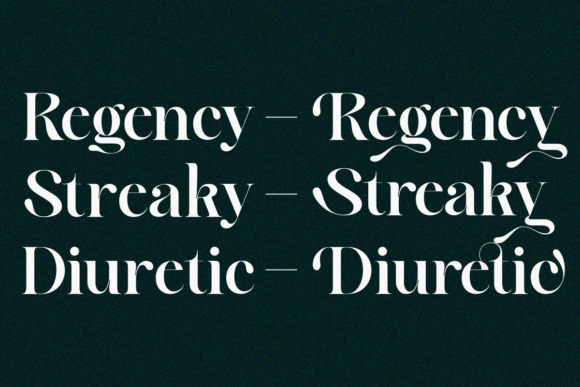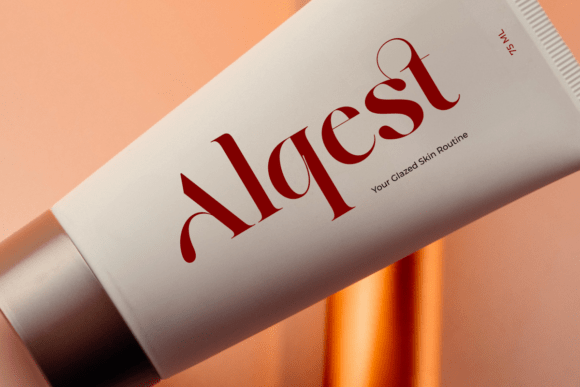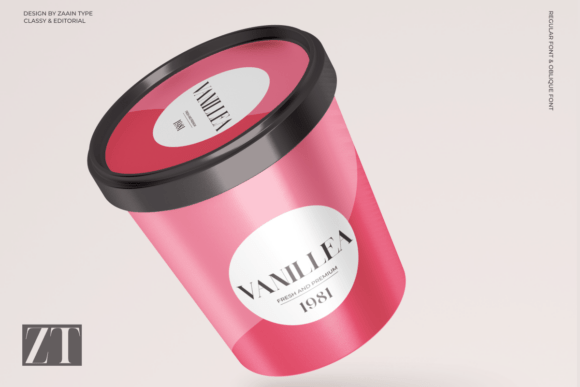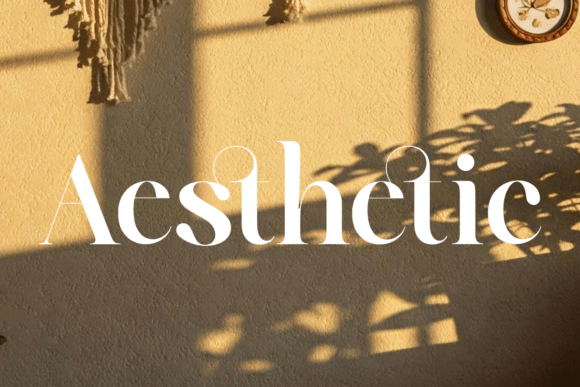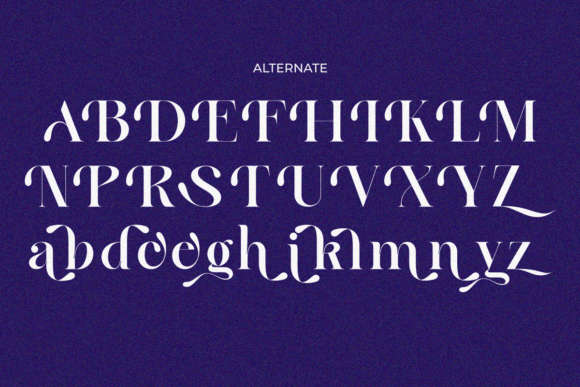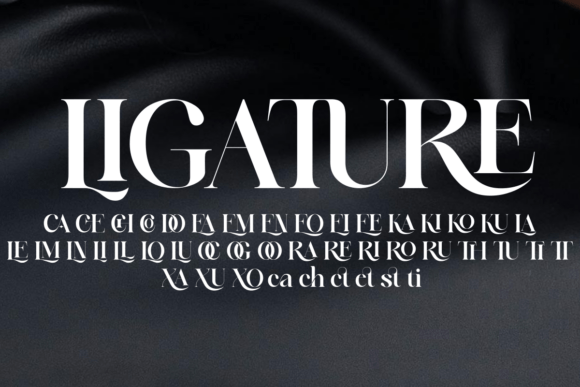
Introducing Alqest Font: A Timeless Serif Typeface for Elegant Designs
In the world of typography, finding the perfect font that embodies both classic sophistication and modern flair can be a daunting task. However, look no further than Alqest Font, a beautifully crafted serif typeface that seamlessly blends traditional elegance with a subtle modern touch. Designed to cater to the needs of designers and crafters alike, Alqest is poised to elevate editorial design, premium branding, fashion, and headline creation to new heights.
The Design Philosophy Behind Alqest
Alqest’s design is rooted in the principles of balanced proportions, smooth thick-to-thin contrast, and refined serif details. Each character is meticulously crafted to exude a sense of sophistication without veering into excessive territory. The result is a typeface that feels both timeless and versatile, capable of adapting to a wide range of design styles and applications.
Key Features of Alqest Font
- Balanced Proportions: Alqest’s characters are designed with careful attention to proportion, ensuring that each letterform feels harmonious and aesthetically pleasing.
- Smooth Thick-to-Thin Contrast: The font features a subtle transition from thick to thin strokes, adding a touch of elegance and sophistication to its overall appearance.
- Refined Serif Details: Alqest’s serifs are meticulously crafted to add a level of refinement and luxury to the typeface, making it perfect for high-end designs.
Perfect for Editorial Design and Premium Branding
Alqest Font is an excellent choice for editorial design, where the nuances of typography can make or break the reader’s experience. Its classic elegance and modern touch make it an ideal fit for premium branding, where establishing a sophisticated and high-end image is crucial. Whether you’re designing a luxury magazine, a high-end fashion brand, or a premium product label, Alqest is sure to deliver a lasting impression.
Elevate Your Fashion and Headline Designs
In the world of fashion, typography plays a critical role in conveying style and sophistication. Alqest Font is perfectly suited for fashion designs, where its refined serif details and balanced proportions can add a touch of glamour and elegance. Additionally, Alqest’s bold and confident appearance makes it an excellent choice for striking headlines, where grabbing the reader’s attention is paramount.
Why Choose Alqest Font?
With so many typefaces available, why choose Alqest Font? Here are just a few compelling reasons:
- Timeless Aesthetic: Alqest’s classic elegance ensures that your designs will remain stylish and relevant for years to come.
- Versatility: The typeface’s adaptability makes it suitable for a wide range of design styles and applications.
- Sophisticated yet Understated: Alqest strikes the perfect balance between sophistication and subtlety, making it an excellent choice for designs where nuance is key.
In conclusion, Alqest Font is a beautifully crafted serif typeface that offers a unique blend of classic elegance and modern sophistication. With its balanced proportions, smooth thick-to-thin contrast, and refined serif details, Alqest is the perfect choice for designers and crafters looking to elevate their editorial design, premium branding, fashion, and headline creations. Whether you’re aiming to create a timeless aesthetic or simply want to add a touch of luxury to your designs, Alqest Font is an excellent choice.